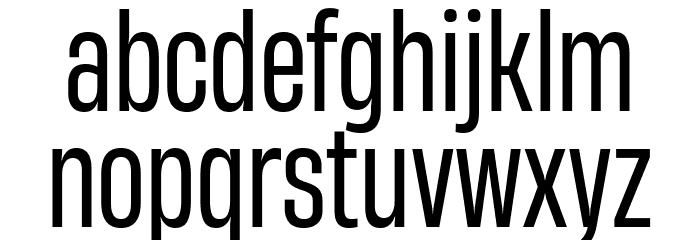
Heading Now Trial 44 Regular Font
This font features a clean, modern sans-serif design with tall, narrow letterforms. The characters are uniform in width, contributing to a cohesive and streamlined appearance. The uppercase and lowercase letters maintain a consistent height, enhancing readability. The font includes a full set of numerals and a variety of special characters, making it versatile for different applications. Its geometric structure and minimalistic style make it suitable for contemporary design projects.
A modern, narrow sans-serif font with a clean and geometric design.
- Font: Heading Now Trial 44 Regular
- Proposed Projects: Ideal for use in headlines, posters, branding, and digital interfaces where a modern and sleek look is desired.
- Use Case: Headlines, Logos, Digital Interfaces